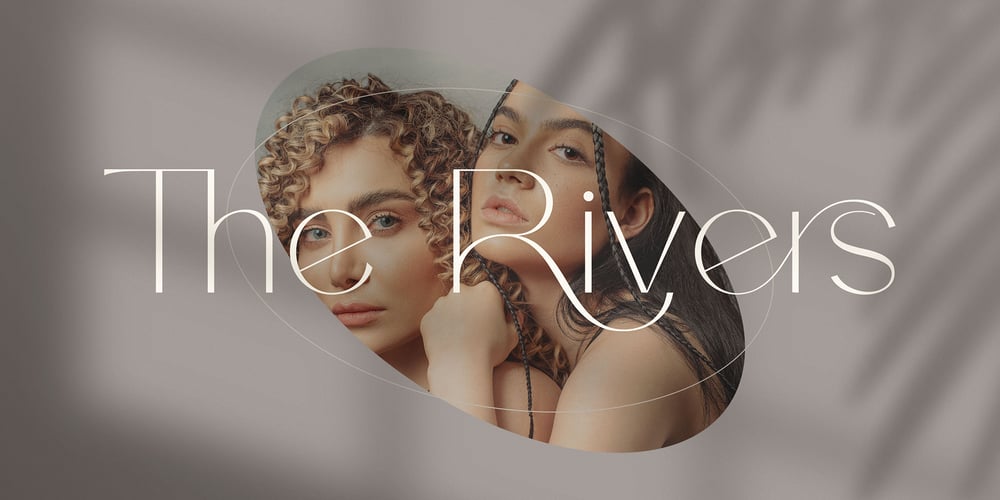
The Rivers
The Rivers font
The Rivers Font Family was designed by Peter Olexa and published by Deeezy. The Rivers contains 1 styles and family package options. Trendy or modern style sans font for your fancy projects. Elegant, thin and fashion style on The Rivers font will be great for any branding project. Lot of alternates and ligatures will help you to create unique and original logo design or website header! Enjoy 🙂